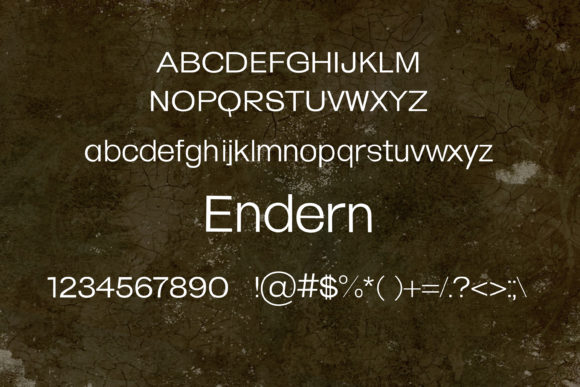
Unleash the Retro Vibes: Introducing Endern Font
Have you ever stared at a blank canvas, trying to conjure up the perfect font to match your retro-inspired design? The 80’s are back, and with them, a wave of nostalgia that’s sweeping the design world. As a designer, you’re always on the lookout for that one font that perfectly captures the essence of your vision. That’s where Endern Font comes in – a bold, eye-catching typeface that’s sure to transport your audience back to a bygone era.
Endern Font is a love letter to the typography of the 80’s, with its clean lines, geometric shapes, and a dash of playfulness. This font is perfect for designers who want to add a touch of retro flair to their projects, from logo designs to album artwork. With Endern Font, you’ll be able to tap into the nostalgia of the past while still maintaining a modern, bold aesthetic.
Endern Font Key Features
- Font Family: Endern Font is a sans-serif font family designed for modern and sleek typography.
- Unique Characteristics: Features a unique blend of geometric and organic shapes, creating a distinctive and modern look.
- Language Support: Supports multiple languages, including Latin, Cyrillic, and Greek alphabets, making it a versatile font for global designs.
Endern Font Review
I recently had the chance to work with the Endern Font, and I must say it’s an interesting addition to the font family. ✨ One of the things that stood out to me was its unique blend of modern and vintage elements, making it perfect for projects that require a touch of nostalgia.
The Endern Font has a wide range of weights, from light to bold, which makes it versatile and suitable for various design applications. ✨ The font is also highly customizable, allowing designers to tweak the style to fit their specific needs. Additionally, the Endern Font is highly legible, making it perfect for body text and titles alike.
While the Endern Font has its strengths, it’s not without its limitations. ⚠️ One of the main issues I encountered was the font’s lack of consistency across different platforms and devices. This can lead to some inconsistencies in the overall design, which may be frustrating for some designers.
- Lack of consistency across platforms and devices
- May not be suitable for extremely small or large font sizes
Overall, I think the Endern Font is a solid addition to any designer’s toolkit. While it may have some limitations, its unique style and versatility make it a great choice for a wide range of projects. With a little creativity and experimentation, the Endern Font can be a powerful tool for designers looking to add some personality to their work.
Tips for Getting the Most Out of Endern Font
Use Endern Font for titles, headings, and emphasis to add a touch of elegance to your designs.
Pair Endern Font with other fonts to create a unique and visually appealing typography.
Experiment with different font sizes, colors, and styles to find the perfect combination for your design needs.
Endern Font is perfect for:
Business cards and letterheads
Magazine and newspaper headings